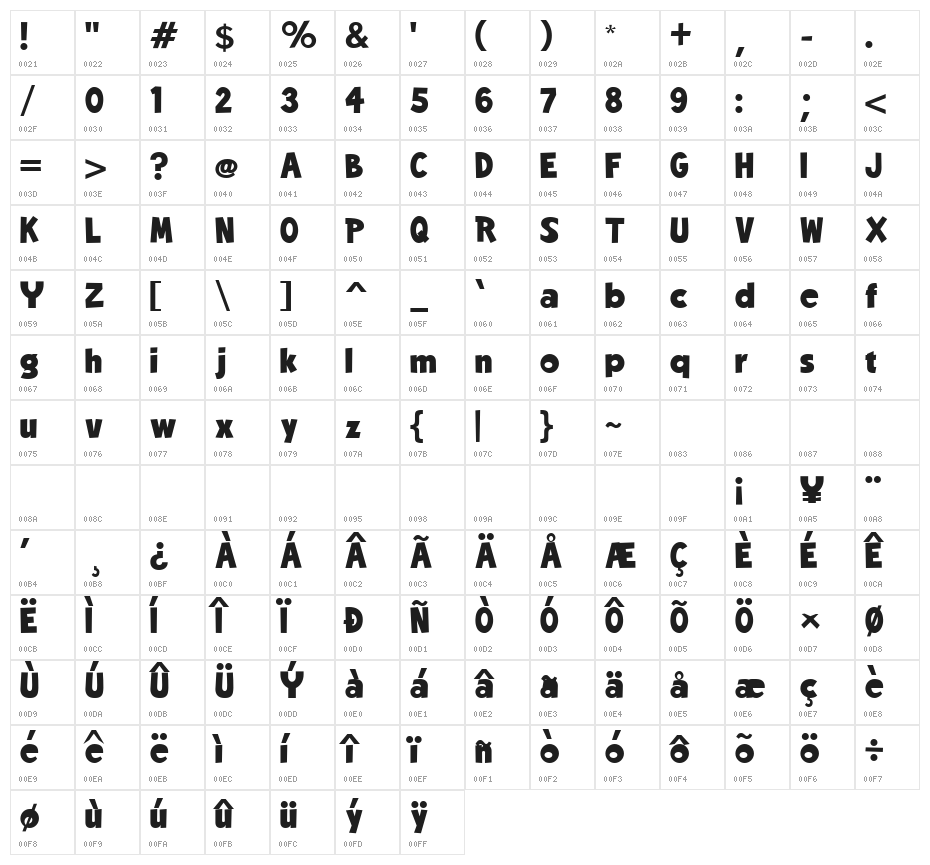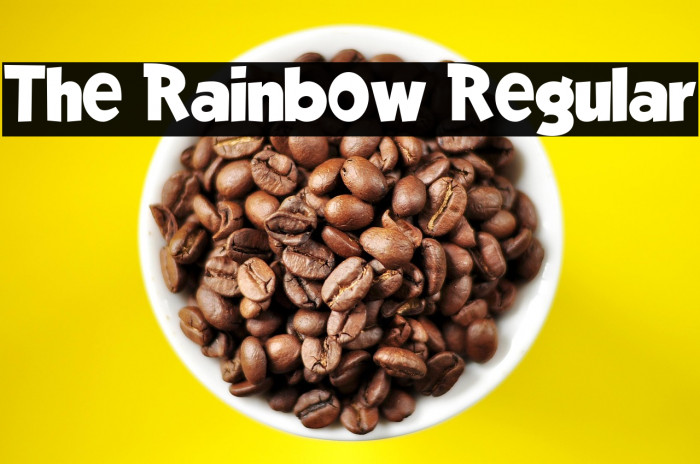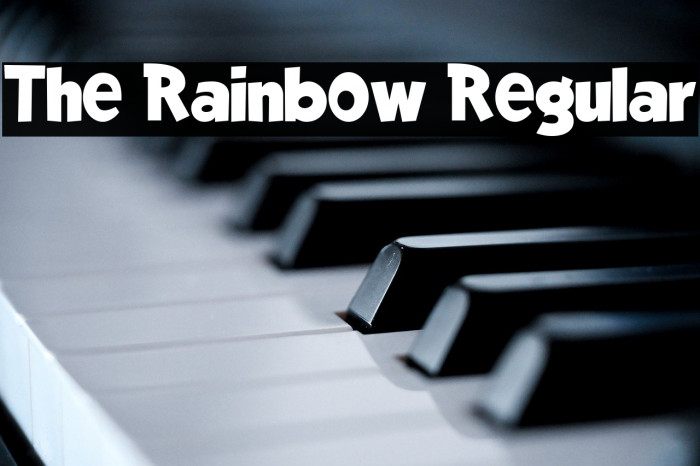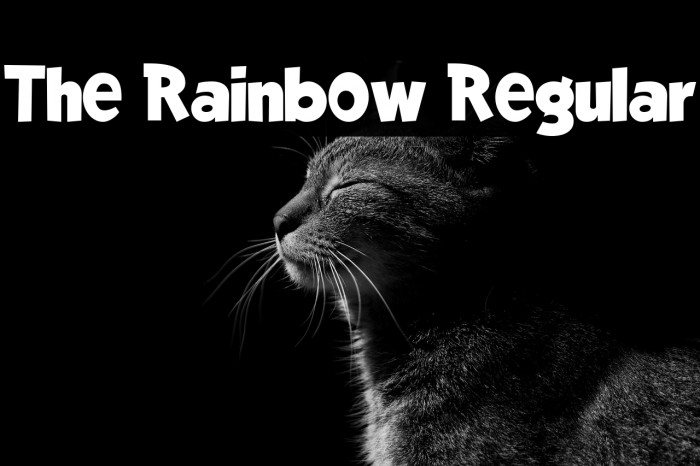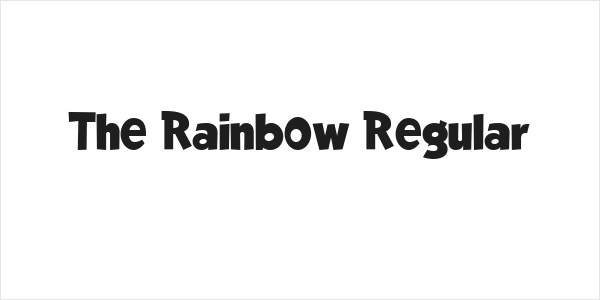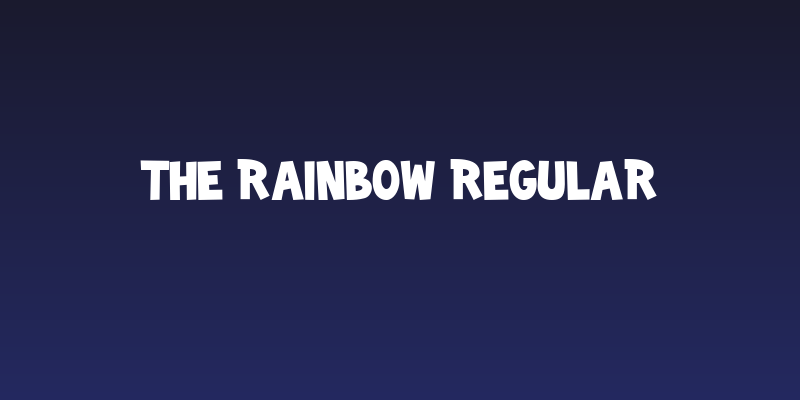
The Rainbow Regular Font
The Rainbow Regular Description
This font features a bold and playful style with a slightly irregular and hand-drawn appearance. The letters are thick and rounded, giving it a friendly and approachable feel. The uppercase and lowercase characters maintain a consistent weight, while the numbers and special characters are equally bold and expressive. The overall design is energetic and vibrant, making it suitable for projects that require a fun and lively touch. The font's unique character shapes add a whimsical element, perfect for creative and informal applications.
Overall StylePlayful, Whimsical
Proposed ProjectsIdeal for children's books, playful branding, party invitations, and creative posters.